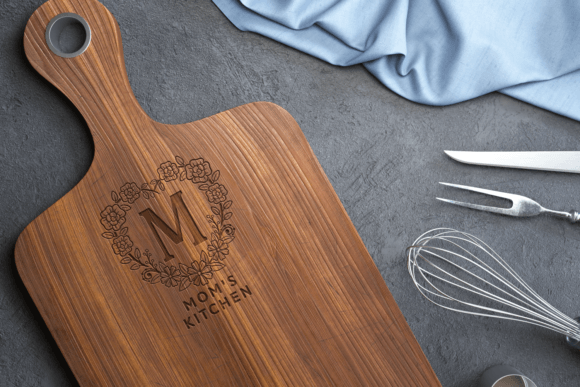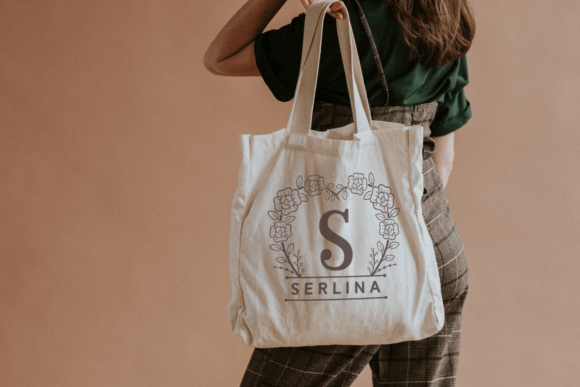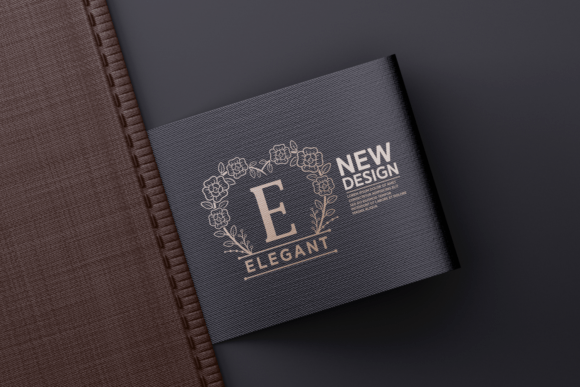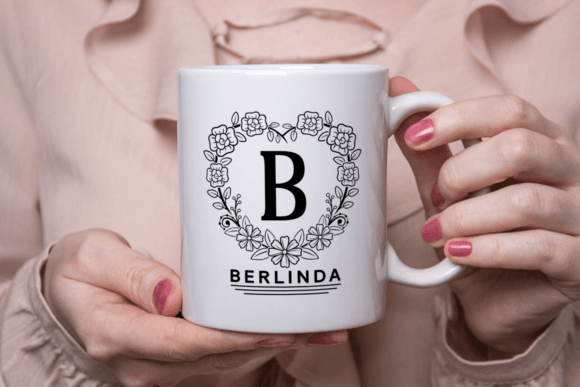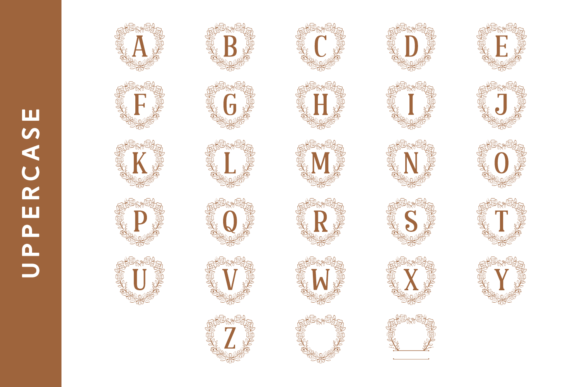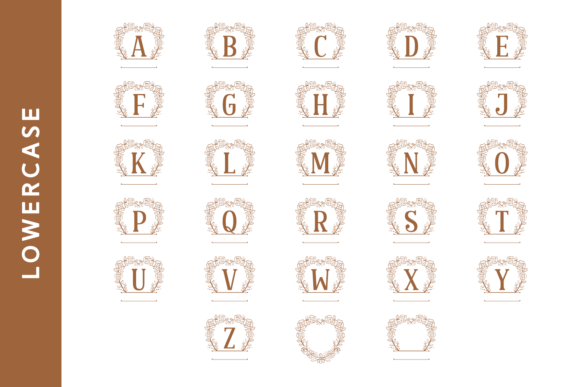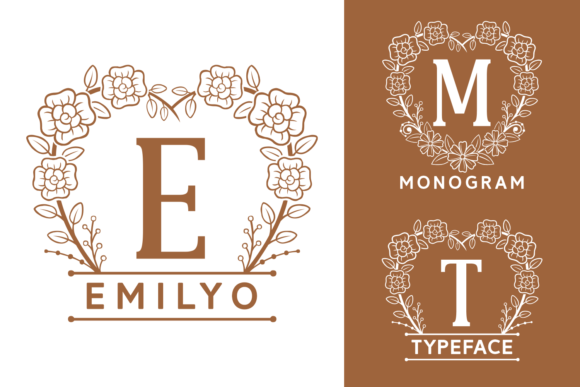
Introducing Emilyo Font: The Elegant Monogram Typeface for Designers and Crafters
Are you a designer or crafter looking for a beautiful and elegant font to elevate your projects? Look no further than Emilyo Font, a stunning floral monogram typeface that’s perfect for creating sophisticated logos, branding projects, cards, wedding designs, invitations, fabric prints, and more.
What is Emilyo Font?
Emilyo Font is a gorgeous monogram typeface that features framed characters with a floral twist. The font is designed to add a touch of elegance and sophistication to any project, making it ideal for designers and crafters who want to create high-end visuals. With its beautiful and intricate design, Emilyo Font is sure to impress your clients and leave a lasting impression.
Key Features of Emilyo Font
- Floral Monogram Design: Emilyo Font features a stunning floral monogram design that’s perfect for creating elegant logos, branding projects, and wedding designs.
- Framed Characters: The font includes beautifully framed characters that add a touch of sophistication to any project.
- High-Quality Design: Emilyo Font is designed with high-quality graphics, ensuring that your projects look professional and polished.
- Versatile: The font is versatile and can be used for a variety of projects, including logos, branding projects, cards, invitations, fabric prints, and more.
Uses for Emilyo Font
Emilyo Font is perfect for a wide range of projects, including:
- Elegant Logos: Create sophisticated logos for your clients or business using Emilyo Font.
- Branding Projects: Use Emilyo Font to create stunning branding projects, including business cards, letterheads, and more.
- Wedding Designs: Emilyo Font is perfect for creating beautiful wedding designs, including invitations, wedding cards, and more.
- Cards and Invitations: Use Emilyo Font to create elegant cards and invitations for any occasion.
- Fabrics and Textiles: Emilyo Font can be used to create stunning fabric prints and textiles for crafters and makers.
Tips for Using Emilyo Font
Here are some tips for using Emilyo Font in your projects:
- Pair with Neutral Colors: Pair Emilyo Font with neutral colors, such as white, black, or gray, to create a sophisticated look.
- Experiment with Colors: Experiment with different colors to find the perfect combination for your project.
- Use for Headlines and Titles: Use Emilyo Font for headlines and titles to add a touch of elegance to your project.
- Mix with Other Fonts: Mix Emilyo Font with other fonts to create a unique and interesting look.
Emilyo Font is a beautiful and elegant monogram typeface that’s perfect for designers and crafters who want to create sophisticated projects. With its floral design, framed characters, and high-quality graphics, Emilyo Font is sure to impress your clients and leave a lasting impression. Whether you’re creating logos, branding projects, wedding designs, or fabric prints, Emilyo Font is the perfect choice.